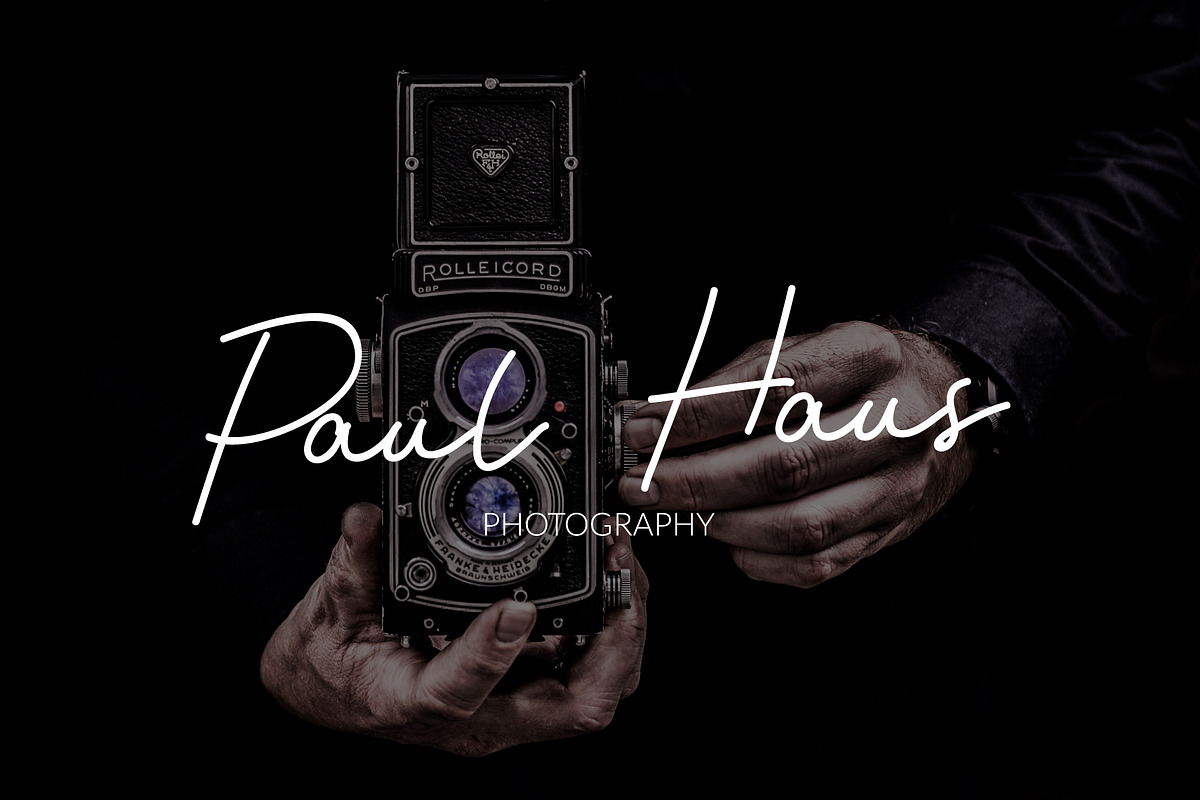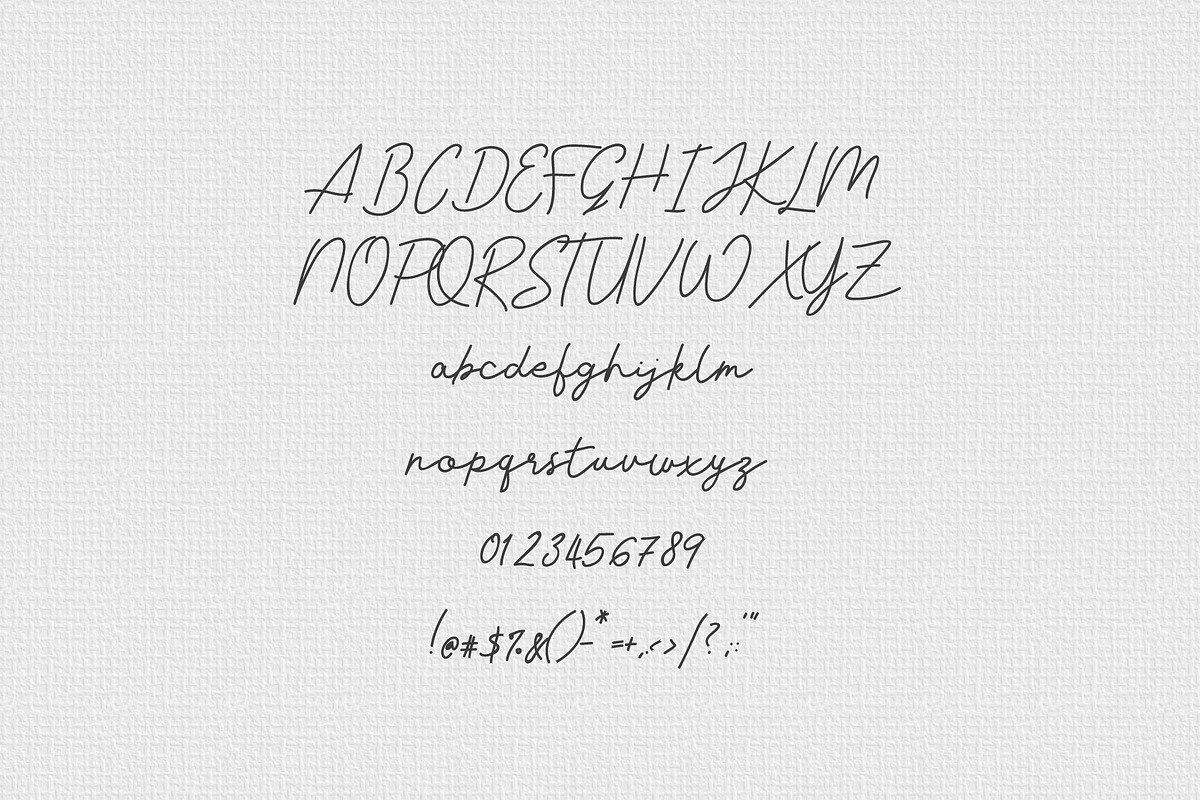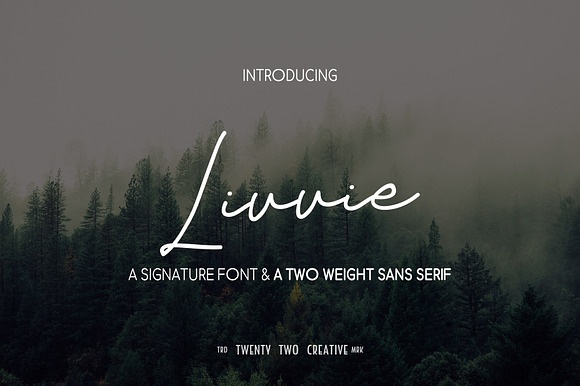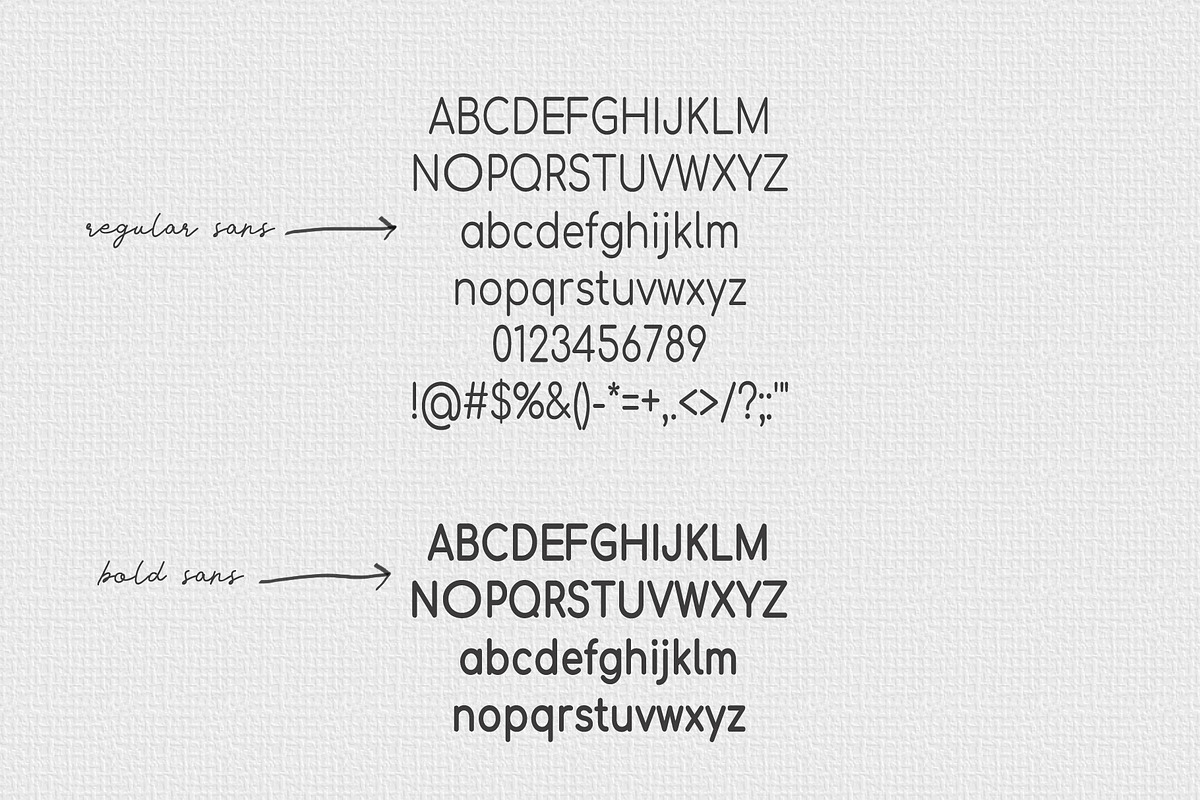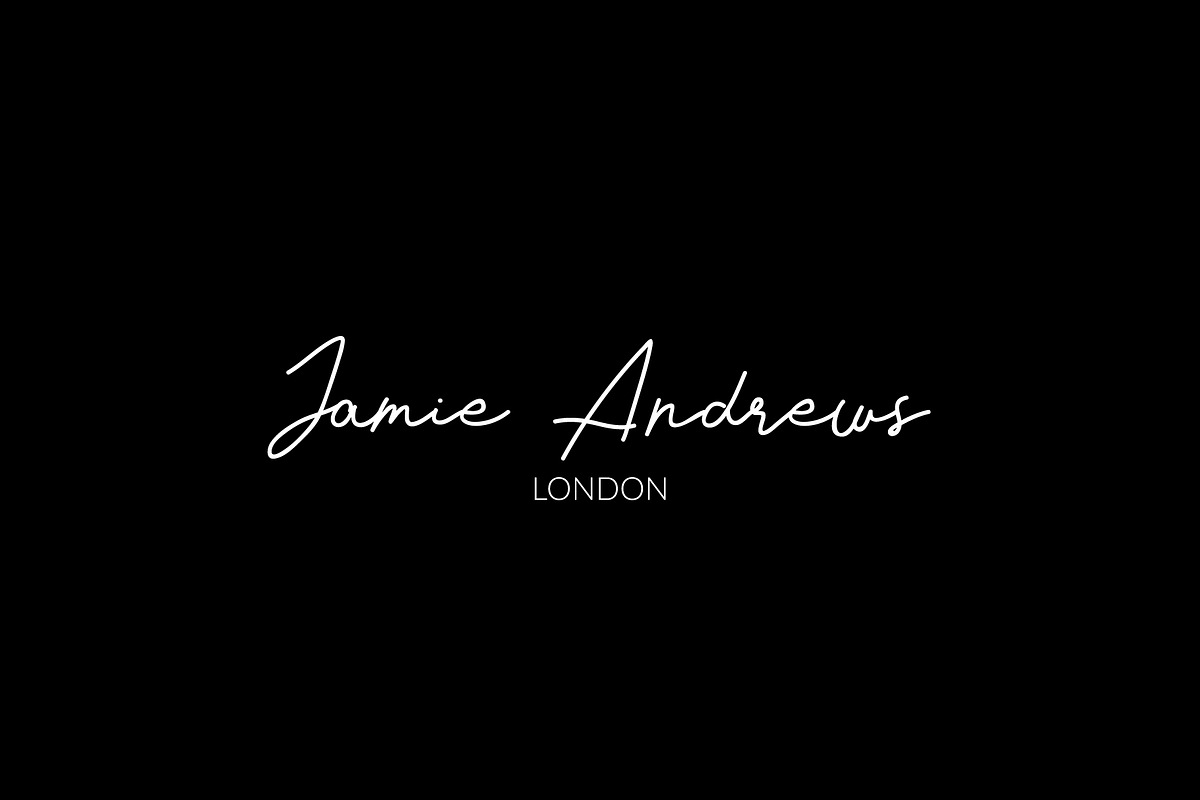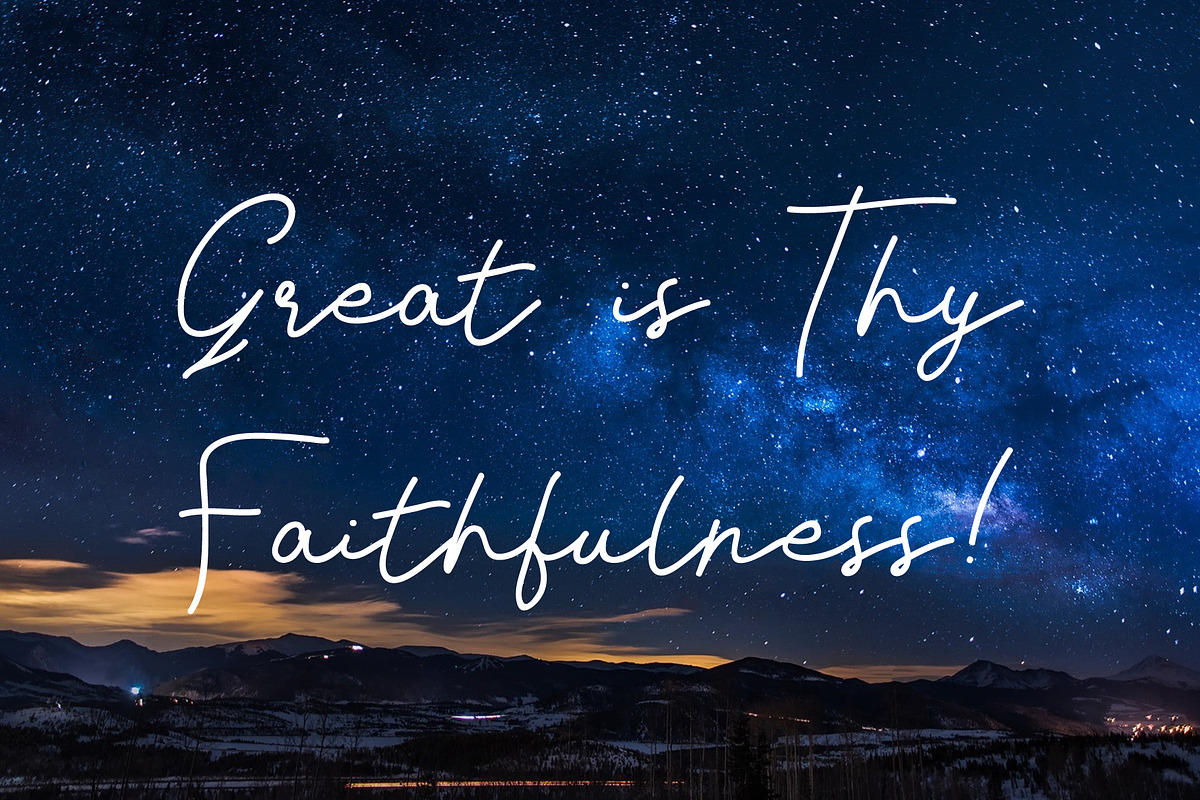
Livvie - Signature & Sans Font Duo
Livvie Font Duo is a precious and beautiful pair of signature & sans fonts perfect for logos, wedding invitations, personal branding and stationery. These fonts are complimentary but also bold enough to stand alone. Livvie Signature has clean and simple lines that speak beauty, innocence and quietness.